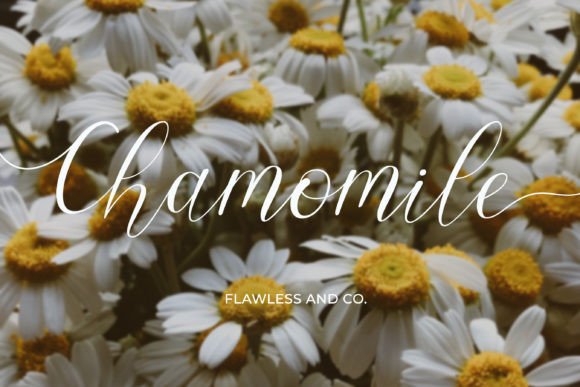
Meet Chamomile Font, the Exquisite Script Font Family Redefining Small Text Aesthetics
In the realm of digital design, fonts hold the power to transform ordinary words into captivating expressions of art. Among the vast array of typefaces, Chamomile Font stands as a testament to the beauty and elegance that can be found in the smallest details.
Chamomile Font is a modern script font family meticulously crafted by Flawless And Co. Its delicate strokes and enchanting curves invite a sense of romance and sophistication into your designs. Each letterform is a masterful blend of tradition and innovation, capturing the essence of a bygone era while embracing the demands of contemporary design.
Step into a World of Purity and Timeless Appeal
With Chamomile Font, purity takes center stage, allowing your designs to exude an aura of innocence and grace. This font is the perfect choice for projects where clarity and elegance are paramount. Whether you're designing wedding invitations, romantic branding materials, or heartfelt personal correspondence, Chamomile Font will elevate your words with its timeless charm.
Unleash the Power of PUA Encoding for Effortless Creativity
Chamomile Font comes equipped with PUA encoding, an ingenious feature that grants you effortless access to the entire spectrum of glyphs and swashes. This opens up a world of creative possibilities, allowing you to add intricate embellishments and flourishes to your text with a few simple clicks.
Experience the Beauty of Harmony in Every Letterform
The harmonious calligraphy writing technique employed in Chamomile Font is a testament to the font's unwavering dedication to visual balance and aesthetic appeal. Each stroke flows seamlessly into the next, creating a mesmerizing rhythm that captivates the eye and invites the reader on a journey of visual exploration.
Discover the Perfect Font for Small Text Excellence
Chamomile Font truly shines when used in small text applications. Its meticulously crafted letterforms retain their clarity and legibility even at the most diminutive sizes, ensuring that your message is conveyed with unwavering precision. Whether you're designing website navigation menus, product labels, or intricate illustrations, Chamomile Font will deliver exceptional results.